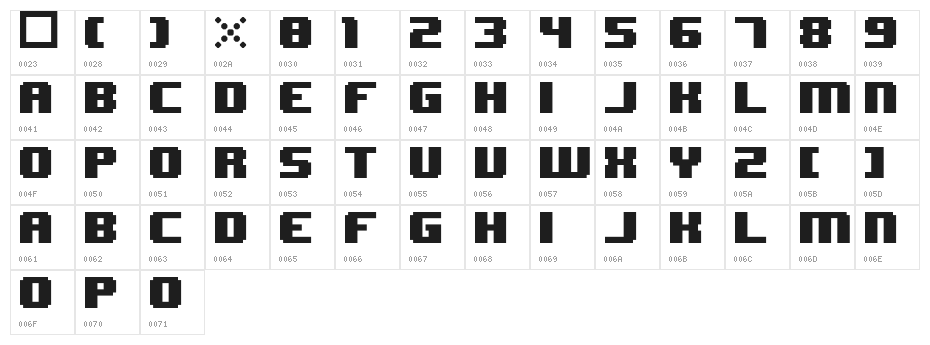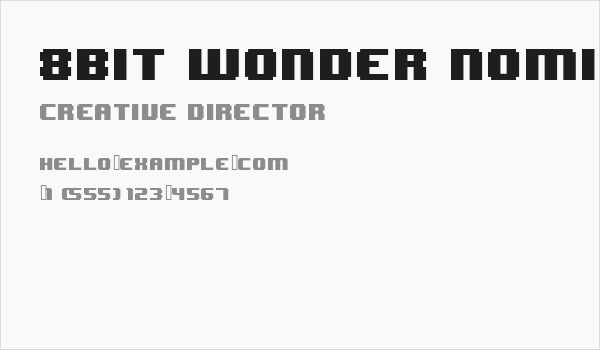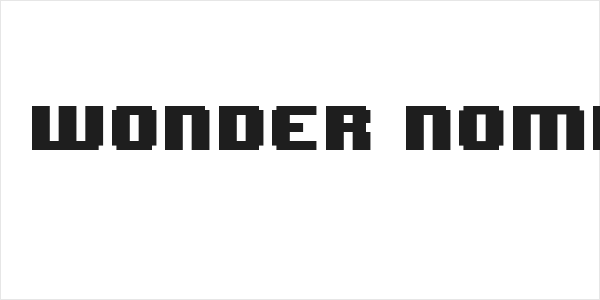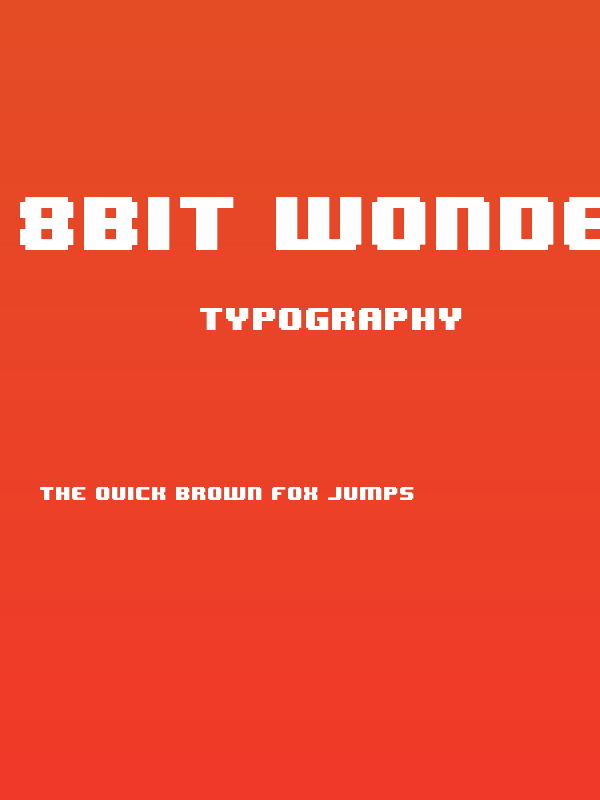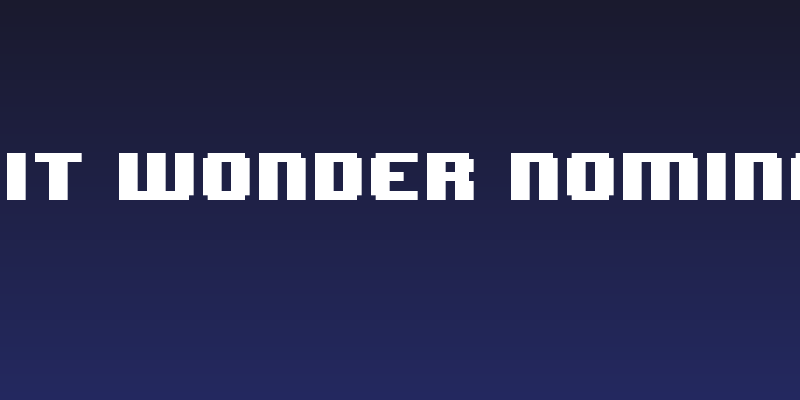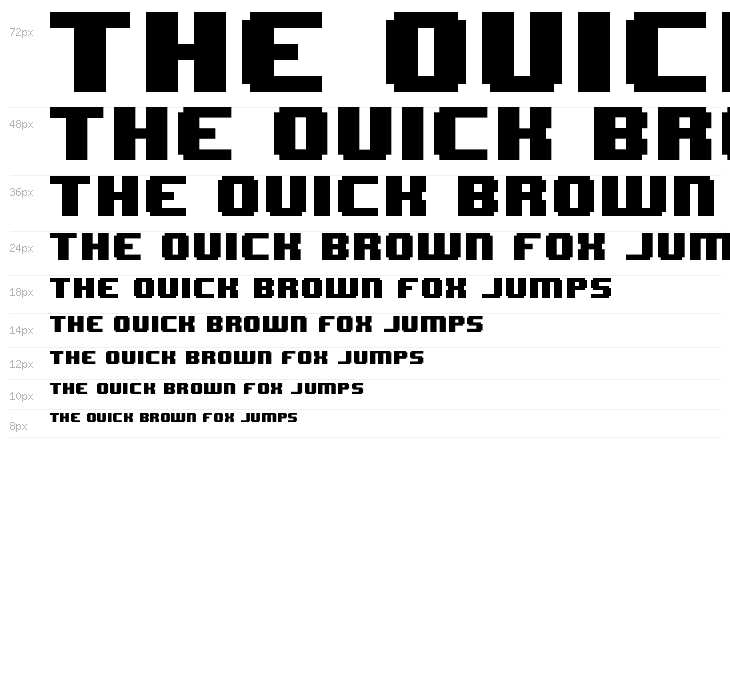
8BIT WONDER Nominal Font
8BIT WONDER Nominal Description
This font embodies a retro, pixelated style reminiscent of classic video games from the 1980s. The characters are blocky and geometric, with each letter and number formed by a grid of squares, giving it a distinctly digital appearance. The uppercase and lowercase letters are uniform in height, maintaining a consistent visual rhythm. The numerals follow the same pixelated design, ensuring cohesion across all characters. Special characters are also designed in this pixelated style, enhancing the overall retro aesthetic. This font is ideal for projects that aim to evoke nostalgia or pay homage to early digital graphics.
| Proposed Projects | Perfect for video game design, retro-themed posters, digital art projects, and nostalgic branding. |